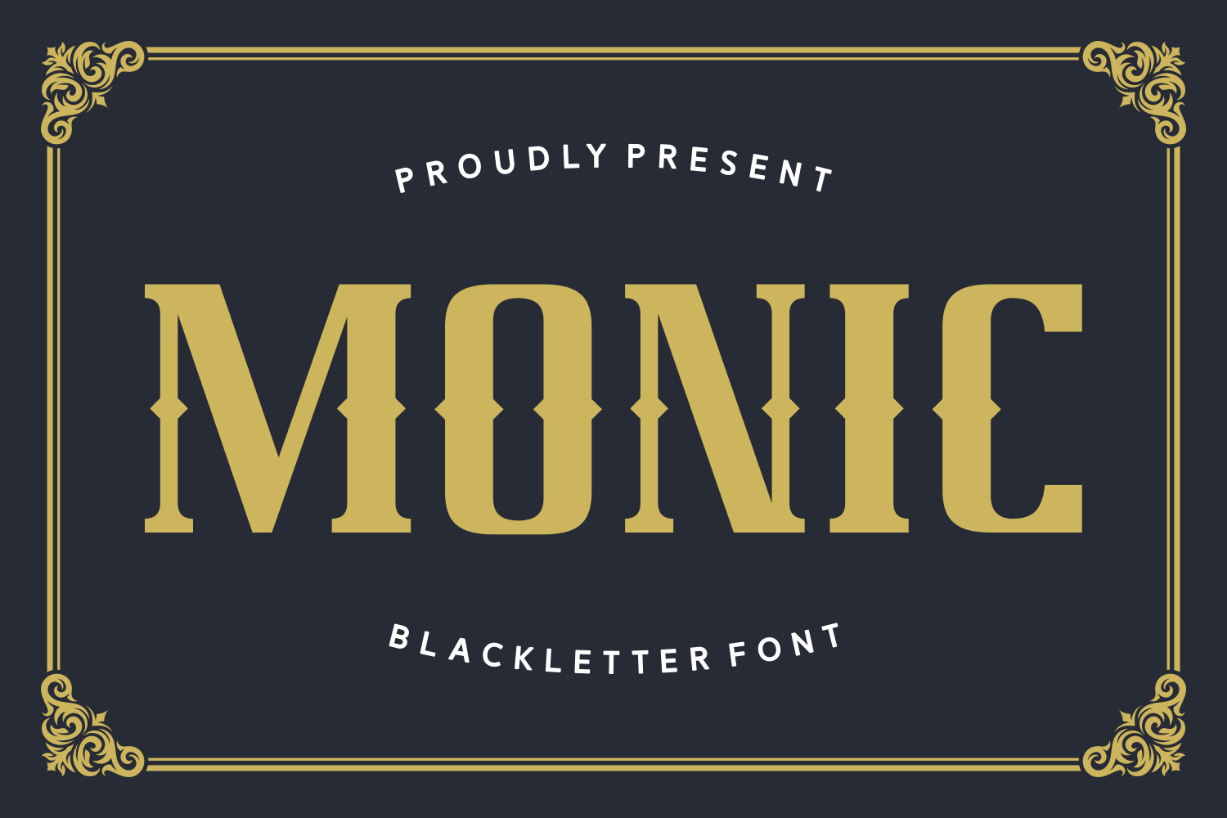
About Monic Font
Monic is a stylish blackletter font with thick serifs. Elegant and versatile, this lovely typeface is perfect for bringing your creative ideas to life! You can use it for logos, posters, product packaging, advertisements, t-shirts, websites, headlines, headers, titles, book covers, and more.